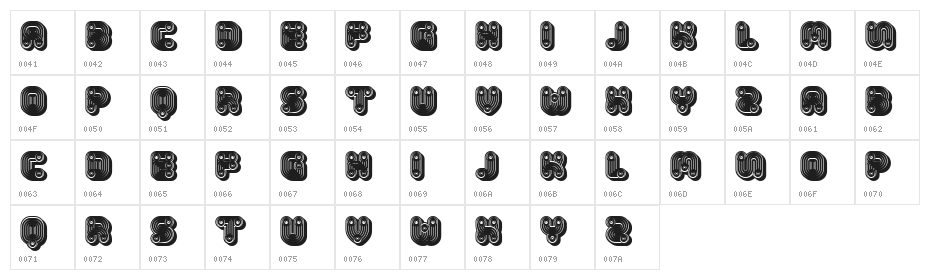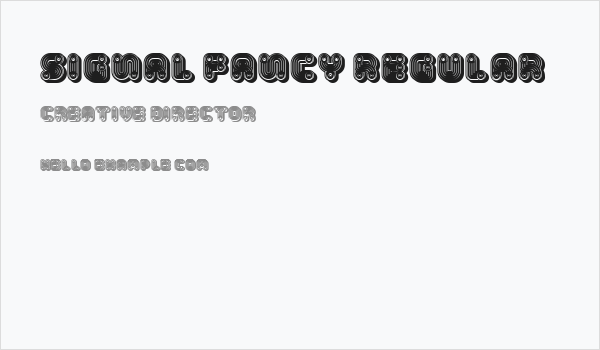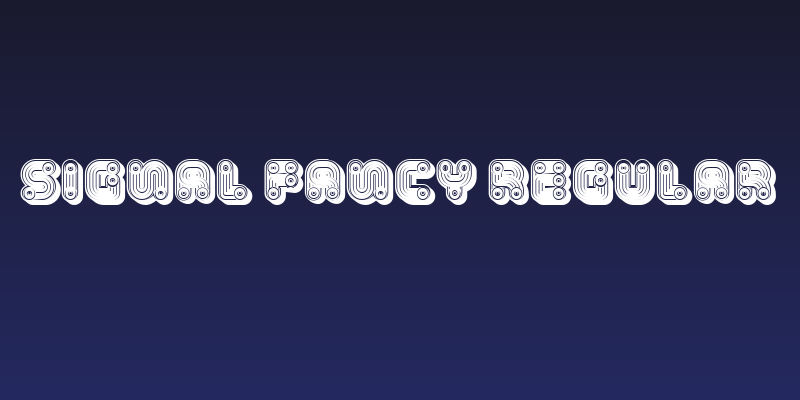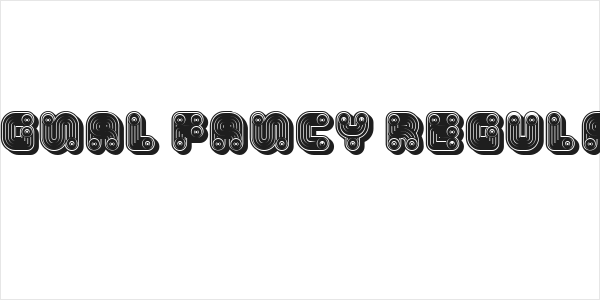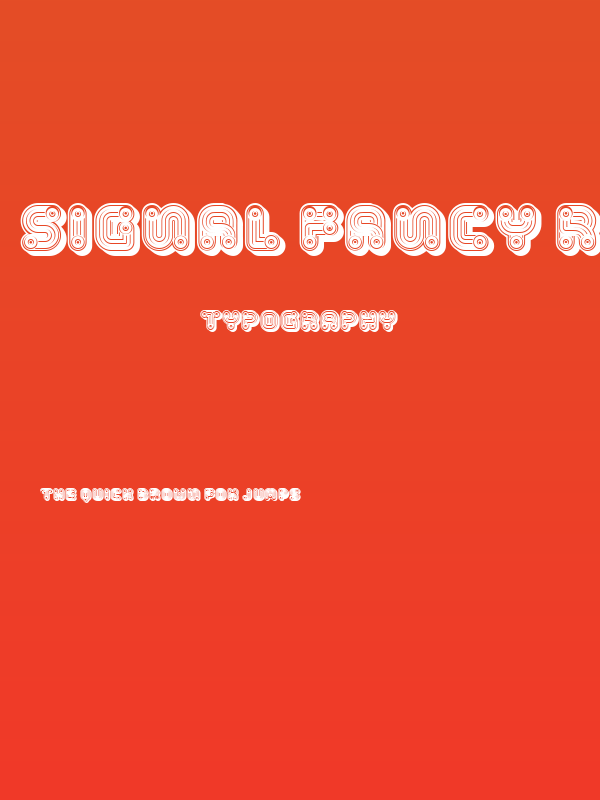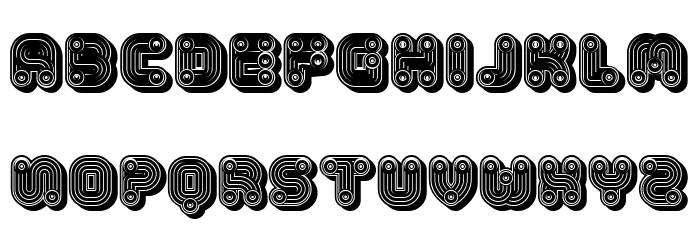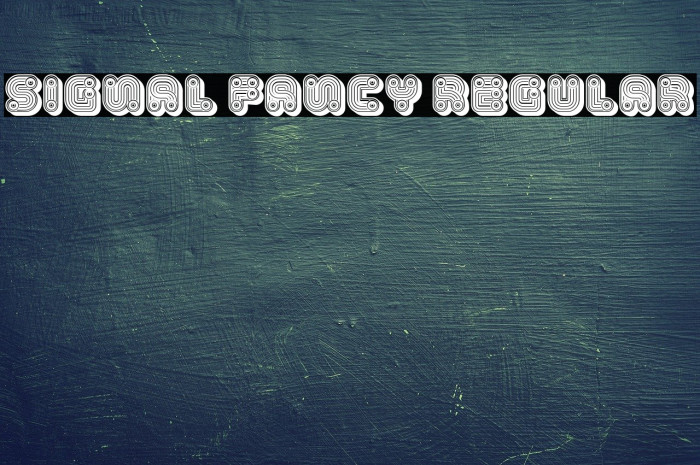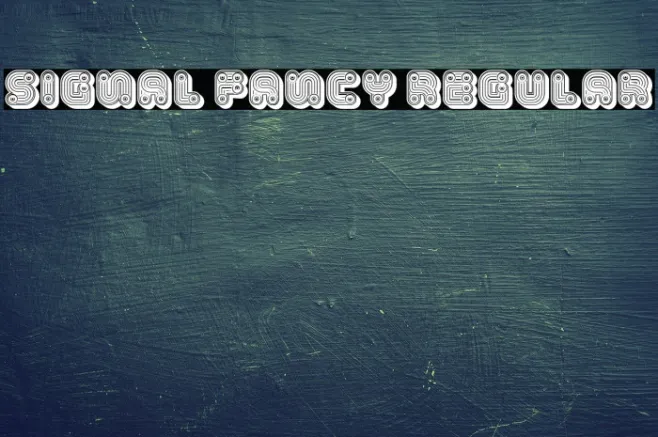
Signal Fancy Regular Font
Signal Fancy Regular Description
This font features a bold, decorative style with intricate line work and circular patterns embedded within each character. The letters are constructed with multiple layers of outlines, creating a sense of depth and complexity. The design is reminiscent of circuit board patterns, giving it a futuristic and technological feel. Each character is distinct, with rounded edges and a consistent thickness throughout. The font is highly stylized, making it ideal for eye-catching designs that require a unique and modern aesthetic.
| Overall Style | Futuristic, Technological, Decorative |
| Proposed Projects | Ideal for technology-themed posters, futuristic branding, video game titles, and sci-fi book covers. |